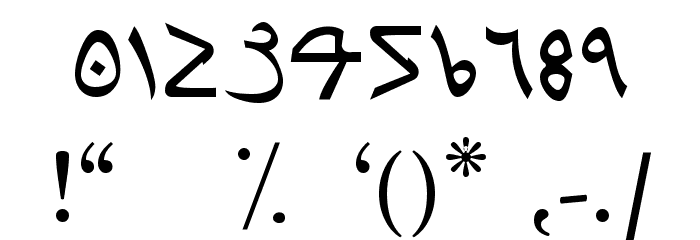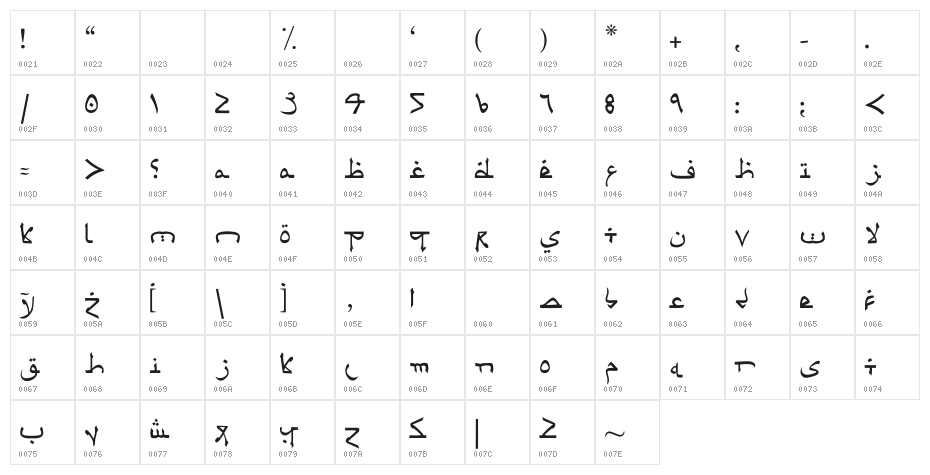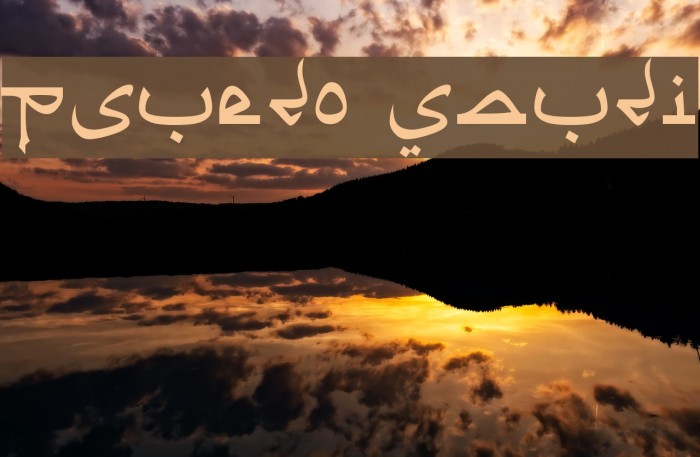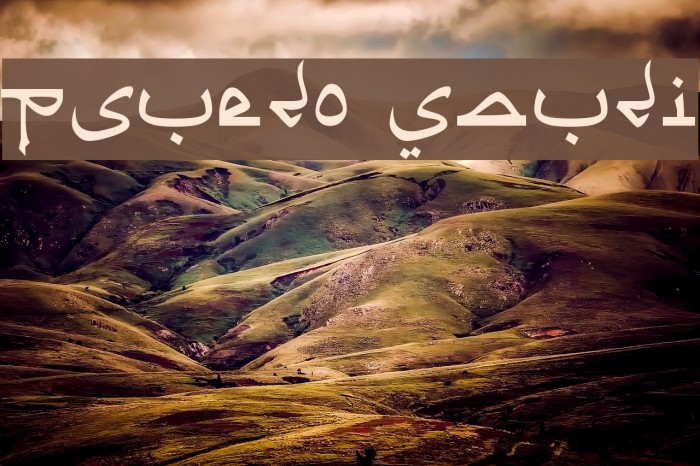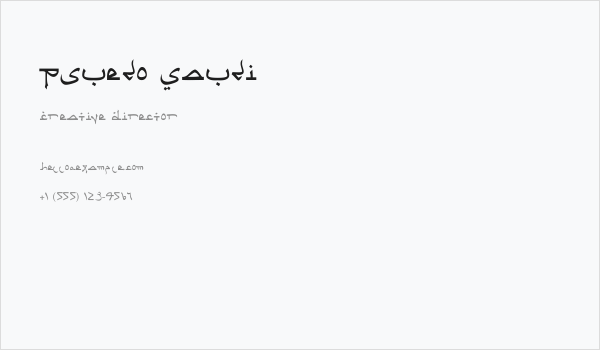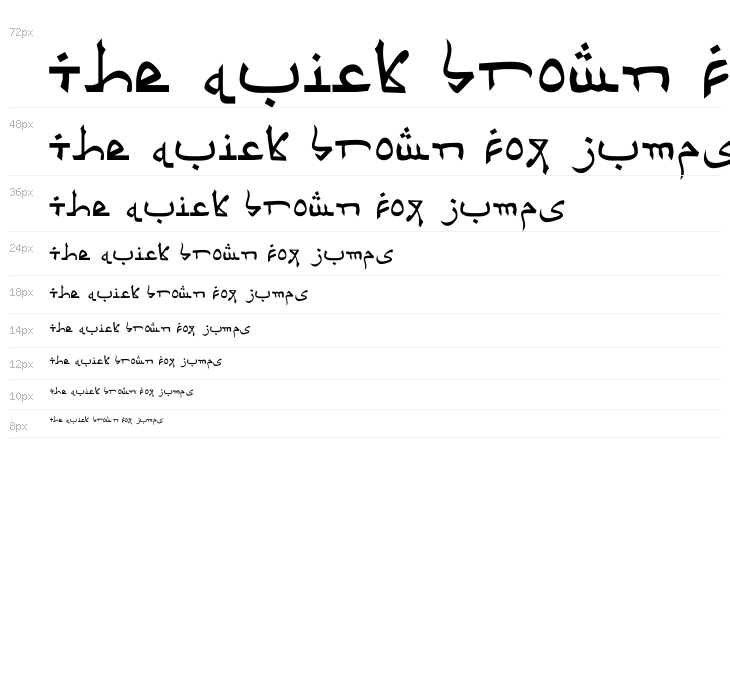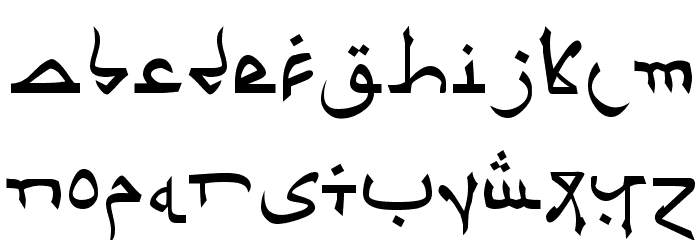
Psuedo Saudi Font
Psuedo Saudi Description
This font features a unique blend of traditional and modern elements, drawing inspiration from Arabic calligraphy while maintaining a distinctly contemporary feel. The characters are bold and angular, with sharp edges and a dynamic flow that suggests movement and energy. The uppercase and lowercase letters are designed with a consistent style, providing a cohesive look across the alphabet. The numerals and special characters follow the same aesthetic, ensuring uniformity throughout. This font's distinctive style makes it suitable for projects that require a touch of cultural flair and modernity.
| Proposed Projects | Ideal for branding, posters, cultural events, and modern design projects. |